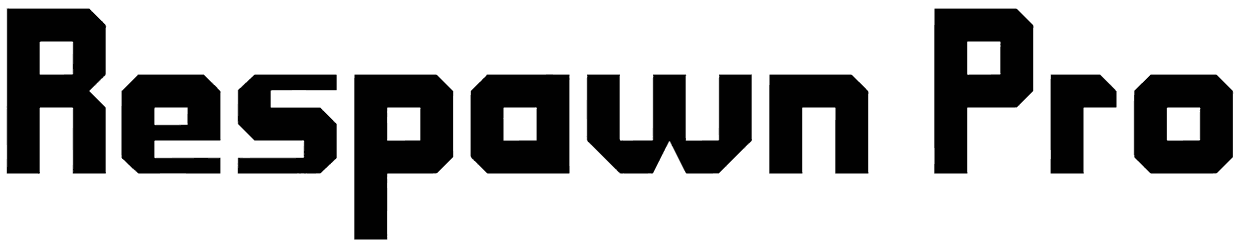
Respawn Pro Font
Designed byJayden Carlisle
Observance of all details and precise adjustment of angles in Respawn Pro has made it possible to implement your ideas reasonably. This geometric font has designs inspired by hexagons that, with a pleasing shape, give you its full potential to convey your message.
So if you want a surefire way to elevate your casual designs to a severe and professional level, keep this block font in your collection and pull it out for designing posters or advertisements.